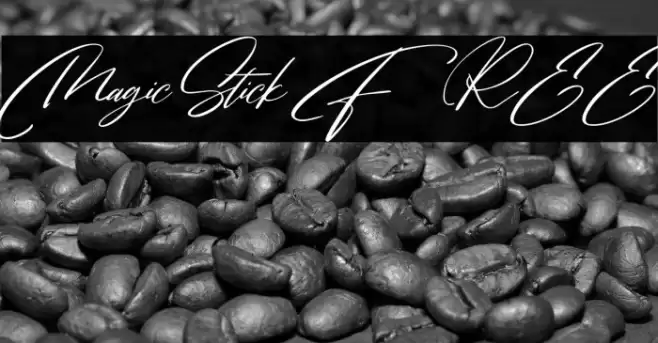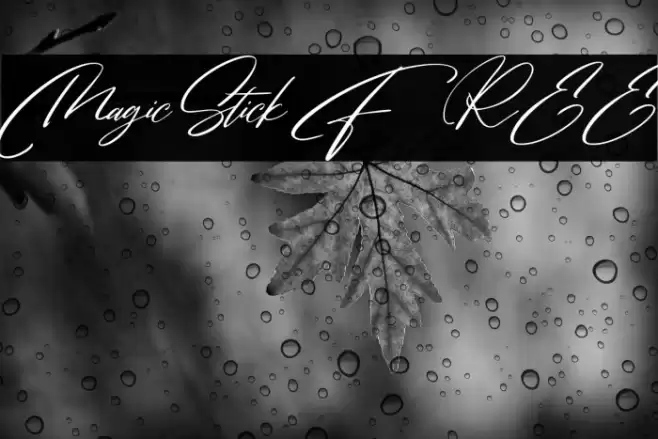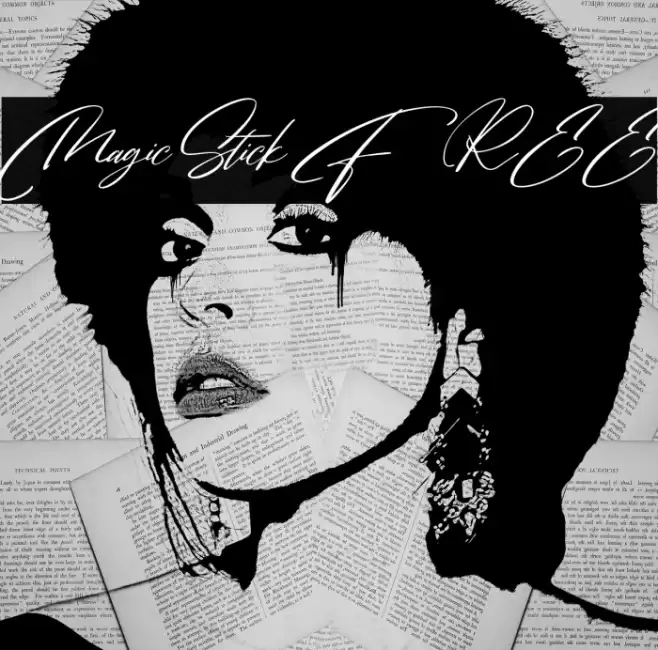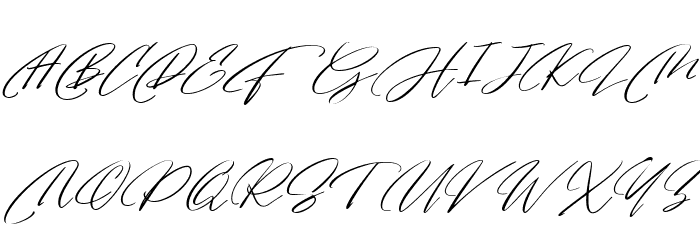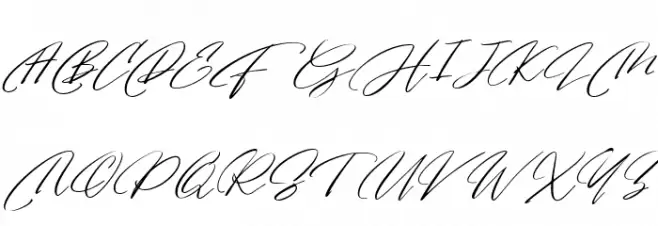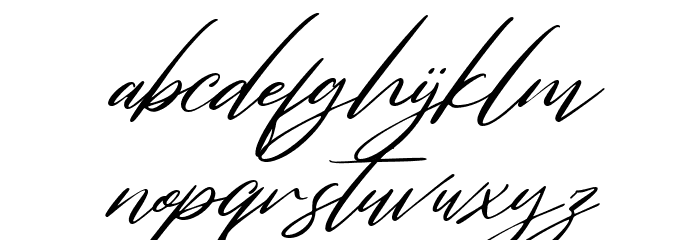
MagicStick FREE Font
MagicStick FREE Description
This font exudes elegance and sophistication with its fluid, cursive style. The characters are beautifully crafted with sweeping curves and delicate lines, giving it a handwritten appearance. The uppercase letters are tall and graceful, while the lowercase letters maintain a consistent flow, enhancing readability. The font includes a full set of characters, including accented letters and special symbols, making it versatile for various languages and uses. Its artistic flair makes it perfect for creative projects that require a personal touch.
An elegant, cursive font with a handwritten style from Regular fonts.
- Font: MagicStick FREE
- Proposed Projects: Ideal for wedding invitations, greeting cards, branding, and logo design.
- Use Case: Logos, Invitations, Greeting cards